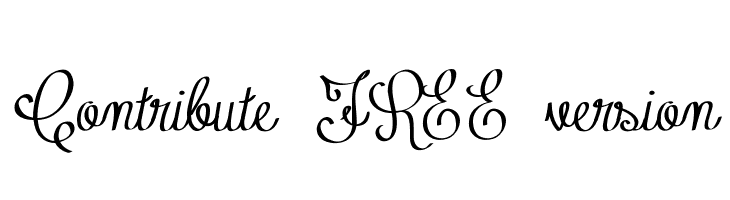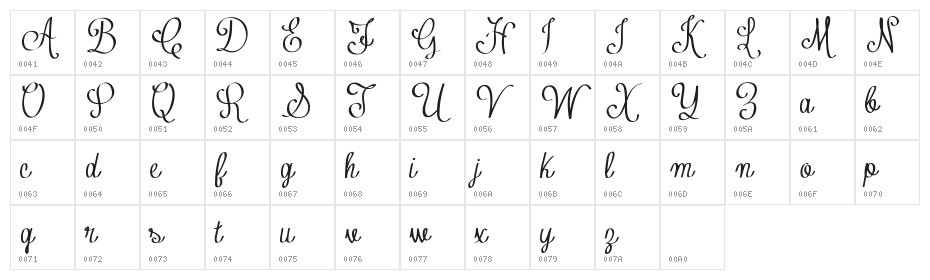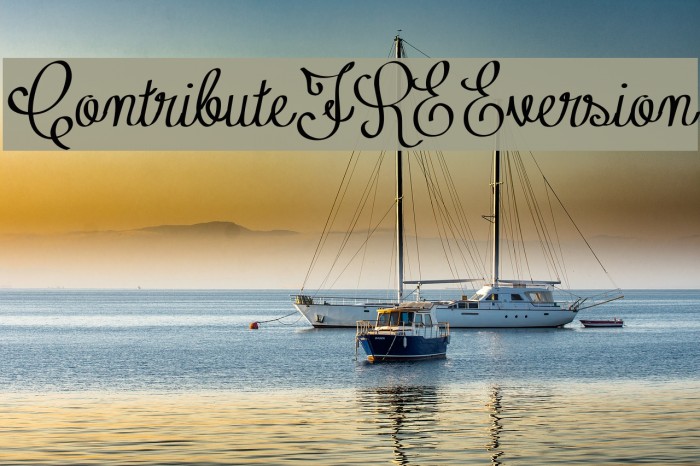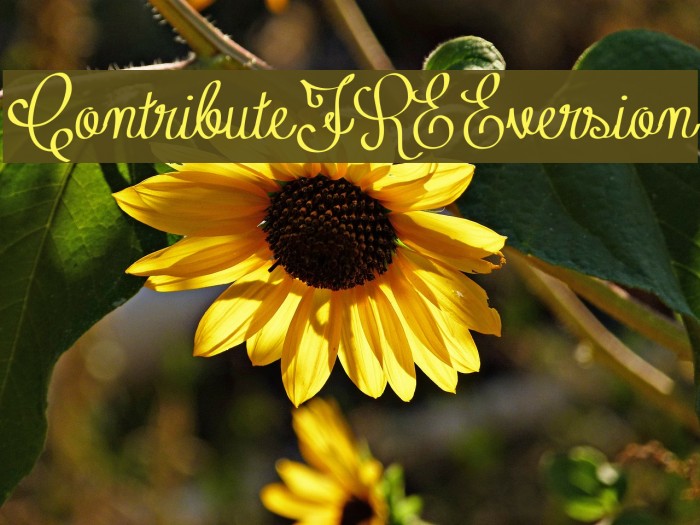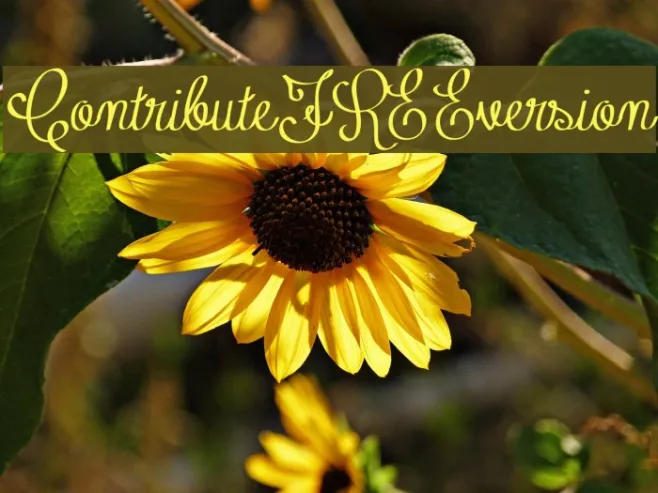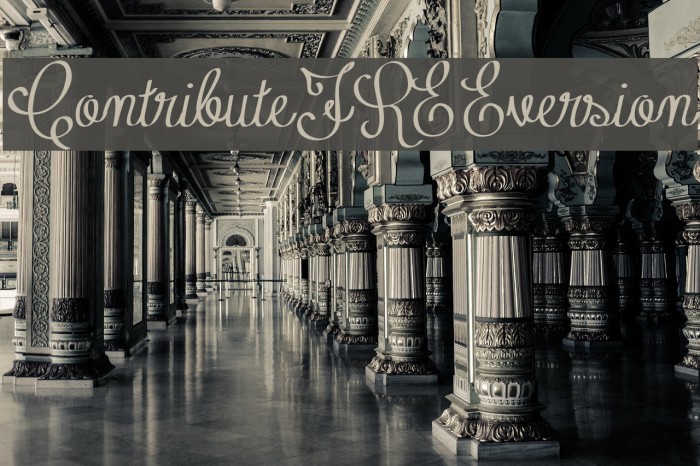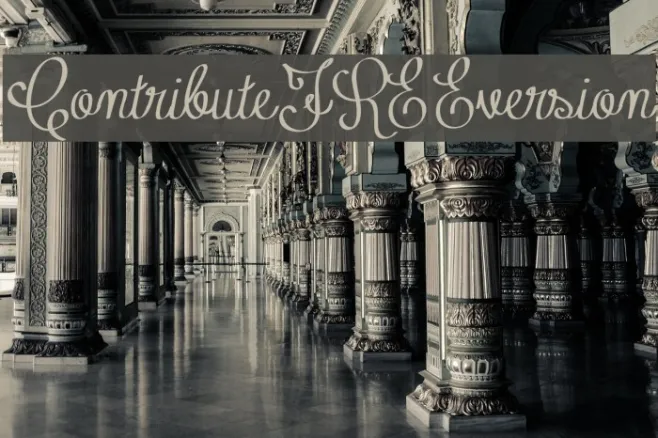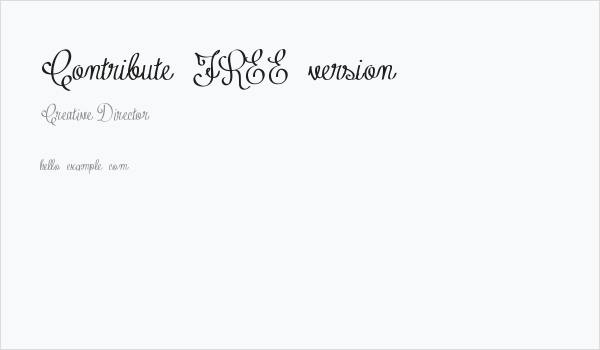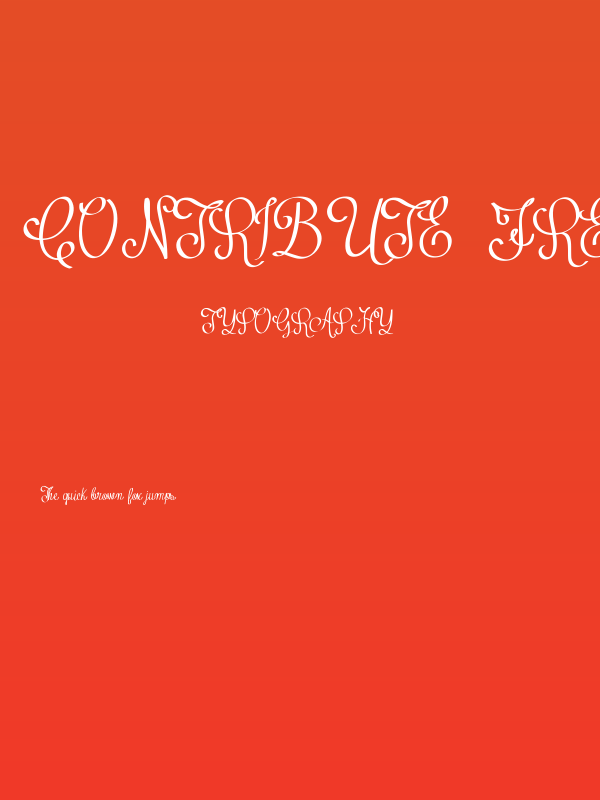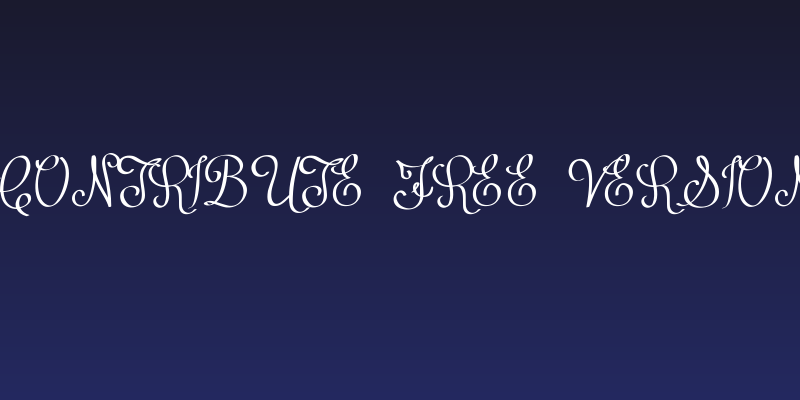
Contribute_FREE-version Font
Contribute_FREE-version Description
This font features an elegant and flowing script style, characterized by its intricate loops and swirls that give it a sophisticated and decorative appearance. The uppercase letters are particularly ornate, with exaggerated flourishes that add a touch of drama and flair. The lowercase letters maintain a consistent style, with smooth, connected strokes that enhance readability while retaining the font's artistic charm. The numerals and special characters are designed to match the overall aesthetic, ensuring a cohesive look across all text elements. This font is ideal for projects that require a touch of elegance and creativity.
| Proposed Projects | Wedding invitations, luxury branding, greeting cards, and decorative signage. |